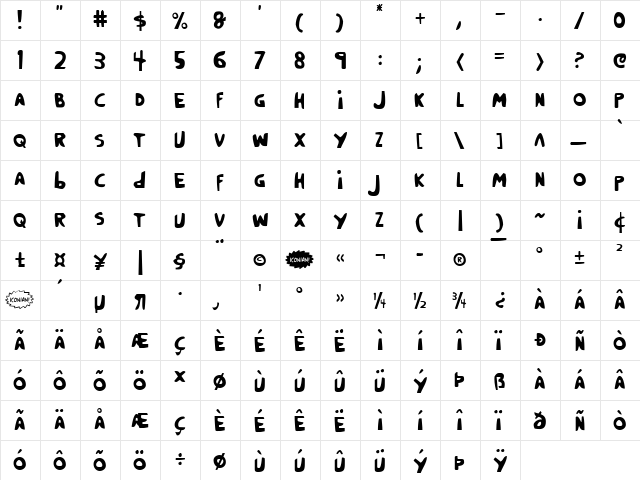
Crappity-Crap-Crap Cond Cond
Design Context for Crappity-Crap-Crap Cond Typeface
Crappity-Crap-Crap Cond is a composed and adaptable typeface that performs quietly and consistently across a wide range of design contexts. Its narrow stance lets it pack a punch even in space-constrained designs.
Pro Tip: Use Crappity-Crap-Crap Cond in both headline and body roles to test its range before committing to a single application.